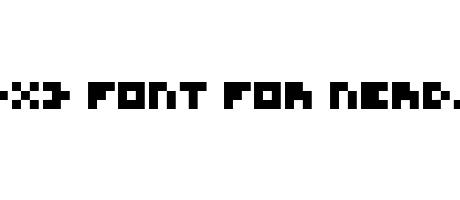
3x3 Font for Nerds
3x3 Font for Nerds: A pixel-perfect throwback, this font channels the 8-bit aesthetic with charmingly chunky, 3x3 pixel characters. Its retro vibe is undeniably geeky, perfect for coding projects, game design, or adding a dash of vintage charm to any digital creation. Embrace the nostalgic simplicity!